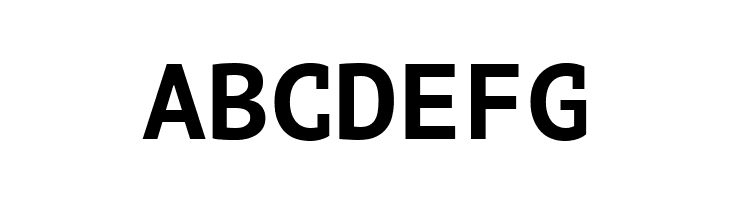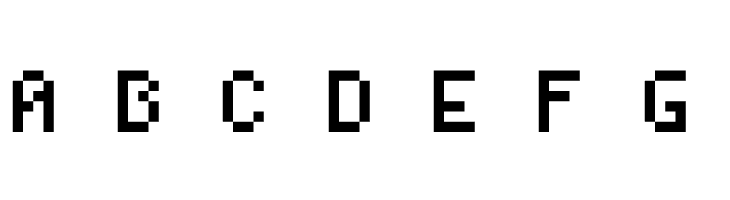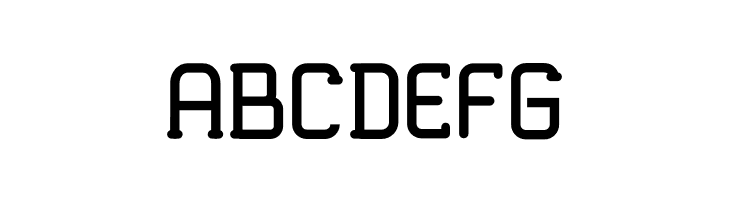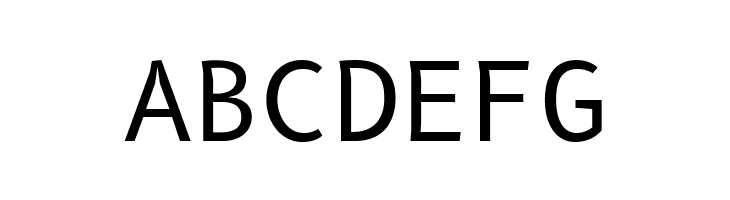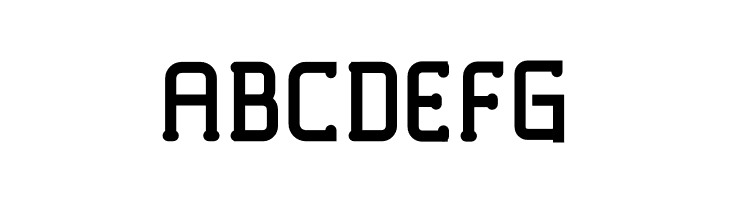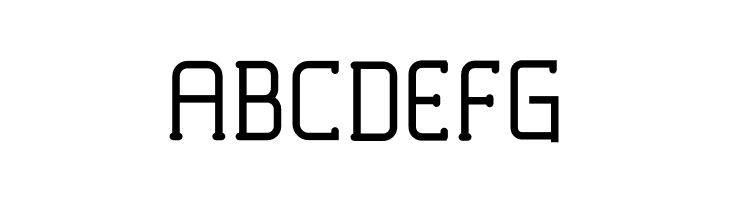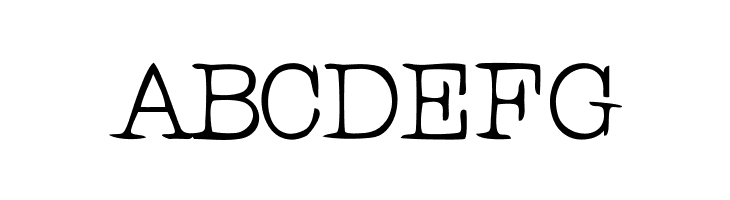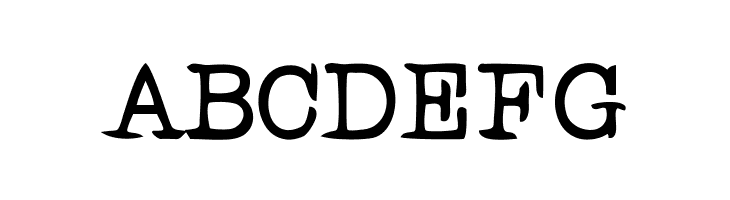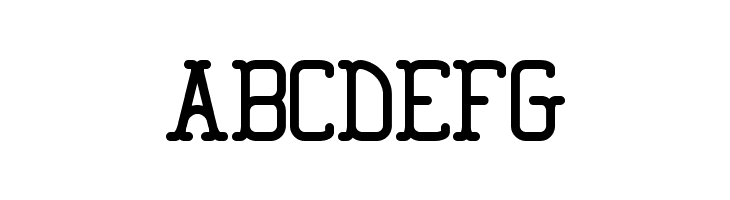
A pixelated, monospaced font with a retro digital style.
A clean, modern monospaced font perfect for coding and technical use.
A modern, monospaced font with tall, narrow characters and consistent stroke width.
A bold, monospaced font with a modern and clean design, ideal for coding and display use.
A modern monospaced font with rounded corners and a clean, structured design.
A bold, monospaced font perfect for technical and coding applications.
A modern monospaced italic font with clean lines and consistent spacing.
A bold, italic, monospaced font with modern aesthetics and strong visibility.
A clean, monospaced font ideal for coding and technical documentation.
A retro, monospaced font inspired by vintage flip clocks.
A bold, modern font with a structured, monospaced appearance and rounded edges.
A modern, geometric monospaced font with clean lines and rounded corners.
A vintage, typewriter-style font with a classic, monospaced design.
A bold, monospaced typewriter-style font with slab serif elements.
A modern, monospaced font with low contrast and geometric shapes, ideal for technical use.
A retro, pixelated monospaced font with a digital, vintage aesthetic.
A bold, monospaced, extra-condensed font with uniform stroke thickness.
A bold, semi-condensed monospaced font with a clean and modern design.
A bold, condensed monospaced sans-serif font with a modern and professional style.
A monospaced sans-serif font with uniform character width, ideal for coding and data alignment.
A monospaced sans-serif font with a clean, modern design and medium weight.
A clean, monospaced font with a minimalist design and semi-condensed width.
A clean, modern monospaced typeface with a condensed, semi-bold style.
A bold, monospaced font with uniform spacing and clear, robust characters.